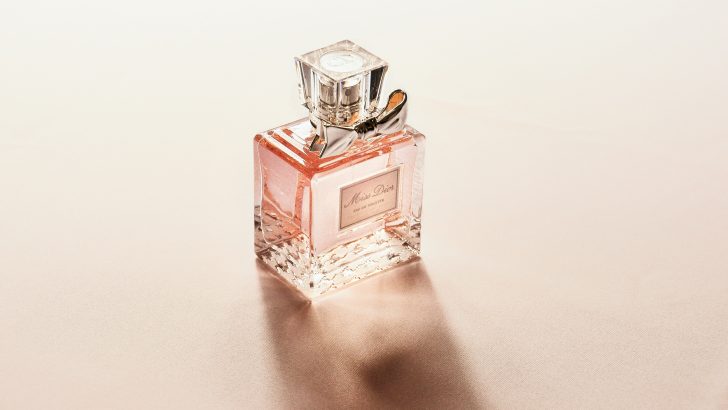
Best Perfume Fonts for Luxury Branding in 2026
Luxury perfume brands understand that branding begins long before customers experience a fragrance. The first impression often comes from typography, packaging, and logo design.
A carefully selected font can communicate elegance, sophistication, and exclusivity. This is why premium fragrance brands invest heavily in typography that reflects their positioning.
In this guide, we’ll explore the best perfume fonts for luxury branding in 2026.
Why Typography Matters for Perfume Brands
Fragrance branding is highly emotional.
Typography helps create a perception of:
- Luxury
- Elegance
- Exclusivity
- Craftsmanship
- Premium quality
The right font can make a fragrance feel more desirable before customers even smell it.
What Makes a Great Perfume Font?
Elegant Letterforms
Luxury perfume branding often relies on refined typography.
Timeless Appeal
Premium brands prefer fonts that remain relevant for years.
Editorial Influence
Many perfume brands draw inspiration from fashion magazines and luxury publications.
Premium Readability
Beautiful typography should always remain easy to read.
Popular Font Styles for Perfume Branding
Luxury Serif Fonts
Serif fonts remain the most popular choice for fragrance brands.
Perfect for:
- Perfume logos
- Luxury packaging
- Premium labels
Editorial Fonts
Editorial typography creates a sophisticated and fashionable appearance.
Minimal Sans Serif Fonts
Many modern fragrance brands use clean typography for a contemporary feel.
High-Contrast Serif Fonts
These fonts communicate exclusivity and elegance.
Perfume Branding Trends in 2026
Quiet Luxury
Understated elegance remains a dominant trend.
Luxury Minimalism
Simple typography paired with premium packaging creates strong visual impact.
Editorial Branding
Fashion-inspired layouts continue to influence fragrance design.
Heritage-Inspired Typography
Classic serif fonts help communicate trust and craftsmanship.
Best Uses for Perfume Fonts
Perfume typography works beautifully across:
- Brand logos
- Packaging design
- Product labels
- Marketing campaigns
- Social media graphics
- Luxury websites
Common Typography Mistakes
Avoid these mistakes:
- Overly decorative fonts
- Poor readability
- Trend-focused typography
- Too many font combinations
- Inconsistent branding
How to Choose the Right Perfume Font
Ask yourself:
- Does the font feel luxurious?
- Does it match the fragrance positioning?
- Will it work on packaging?
- Does it communicate quality?
The best perfume fonts combine elegance with functionality.
Final Thoughts
Typography is one of the most important elements in perfume branding. The right font helps create an emotional connection, strengthen brand identity, and communicate luxury.
Whether you’re launching a niche fragrance brand or redesigning an existing product line, investing in premium typography can help elevate your brand and create a lasting impression.